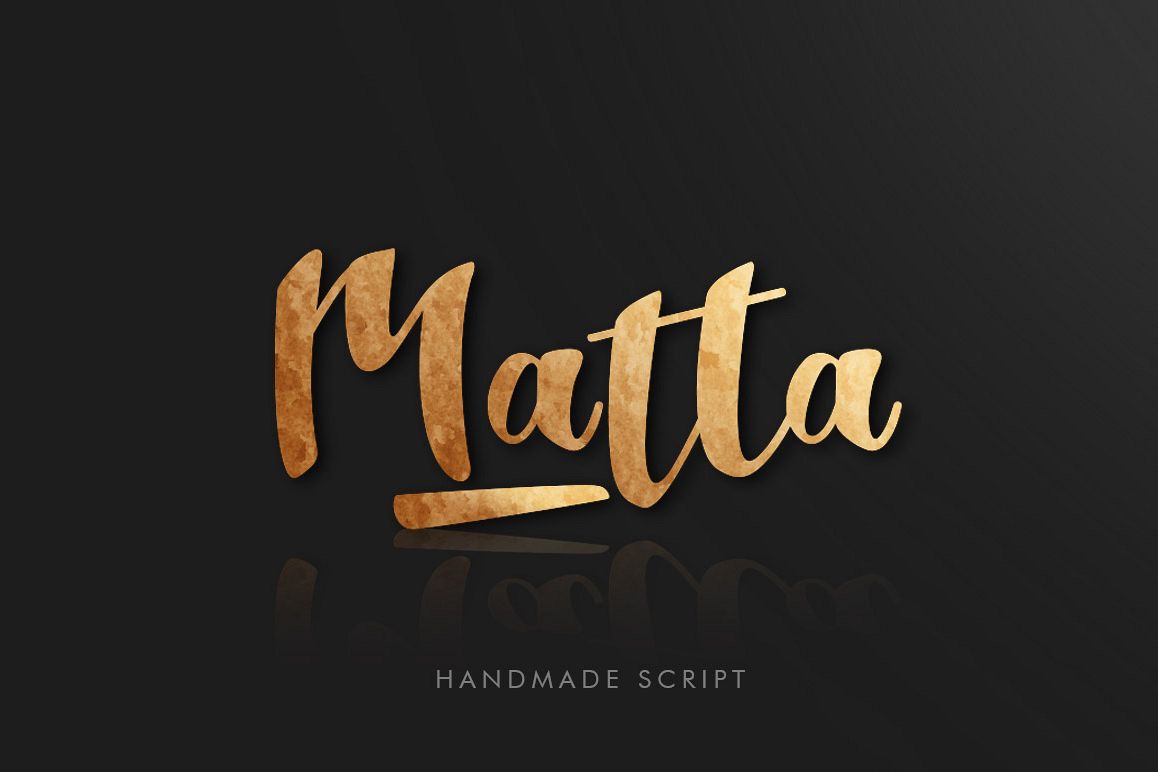
Matta Script is a beautiful handmade script font, modern calligraphy & fresh typeface. Matta Script suitable for logo, branding, greeting card, signature, poster and any design that you create.
Matta Script Features
• Numeral
• Punctuation
• Support PUA unicode (specially coded fonts)
• Swash